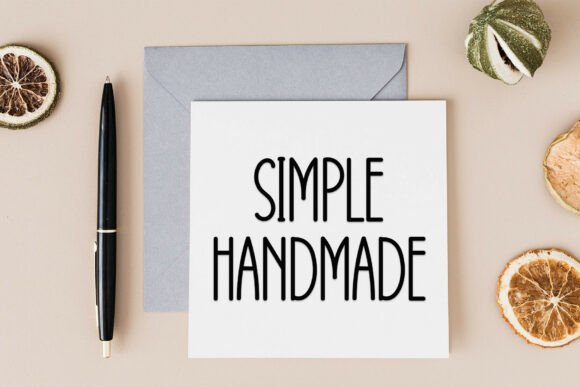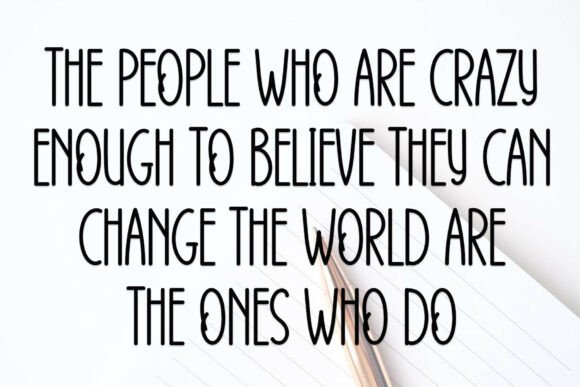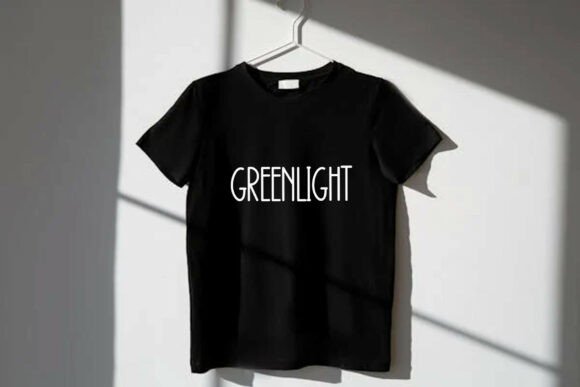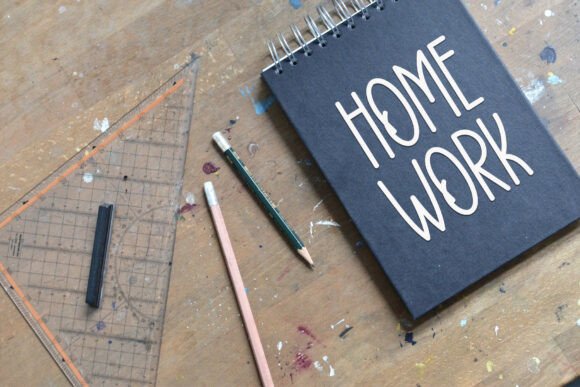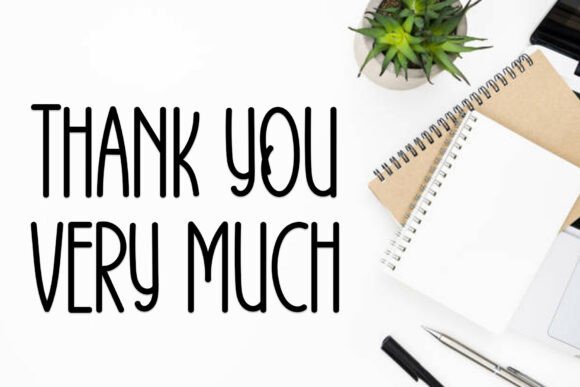
Introducing the Autumn Season Font: Adding a Touch of Warmth and Personality to Your Designs
As the seasons change and the air grows crisper, designers and crafters are on the lookout for fresh inspiration and new fonts to add a seasonal touch to their projects. If you’re searching for a font that embodies the warmth and coziness of autumn, look no further than the Autumn Season Font. This casual handwritten font is designed to bring a relaxed and friendly personality to your designs, making it perfect for a wide range of applications.
The Characteristics of Autumn Season Font
The Autumn Season Font boasts smooth strokes, natural curves, and well-balanced letterforms that capture the charm of authentic handwriting with a modern finish. Its effortless flow and versatile character make it an excellent choice for designers and crafters looking to add a personal touch to their work. Whether you’re creating quotes, branding materials, packaging, or social media posts, this font delivers both readability and charm.
What Makes Autumn Season Font Stand Out
So, what sets the Autumn Season Font apart from other fonts on the market? Here are just a few of its standout features:
- Relaxed and Friendly Personality: The Autumn Season Font has a warm and approachable tone that’s perfect for designs that need a personal touch.
- Smooth Strokes and Natural Curves: The font’s smooth strokes and natural curves give it a organic, hand-written feel that’s both authentic and modern.
- Well-Balanced Letterforms: The font’s letterforms are carefully crafted to be well-balanced and easy to read, making it perfect for body text and headlines.
- Versatile Character: The Autumn Season Font has a versatile character that works well in a variety of contexts, from formal to informal designs.
Using Autumn Season Font in Your Designs
The Autumn Season Font is incredibly versatile and can be used in a wide range of design applications. Here are just a few ideas to get you started:
- Quotes and Posters: The font’s warm and friendly personality makes it perfect for quotes and posters that need a personal touch.
- Branding and Packaging: The Autumn Season Font is an excellent choice for branding and packaging designs that need to convey a sense of warmth and approachability.
- Social Media Posts: The font’s effortless flow and readability make it perfect for social media posts that need to grab attention and convey a message.
Tips for Getting the Most Out of Autumn Season Font
To get the most out of the Autumn Season Font, here are a few tips to keep in mind:
- Use it with a Personal Touch: The Autumn Season Font is all about personality, so don’t be afraid to experiment and add your own personal touch to your designs.
- Mix and Match with Other Fonts: The font’s versatility makes it easy to pair with other fonts, so don’t be afraid to experiment and find the perfect combination for your design.
- Play with Colors and Textures: The Autumn Season Font works well with a variety of colors and textures, so don’t be afraid to get creative and add some visual interest to your designs.
The Autumn Season Font is a unique and versatile font that’s perfect for designers and crafters looking to add a touch of warmth and personality to their designs. With its smooth strokes, natural curves, and well-balanced letterforms, it’s an excellent choice for a wide range of applications, from quotes and posters to branding and packaging. Whether you’re a seasoned designer or just starting out, the Autumn Season Font is sure to become a favorite in your toolkit.